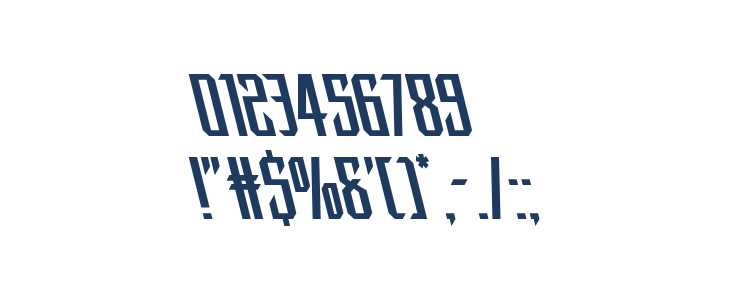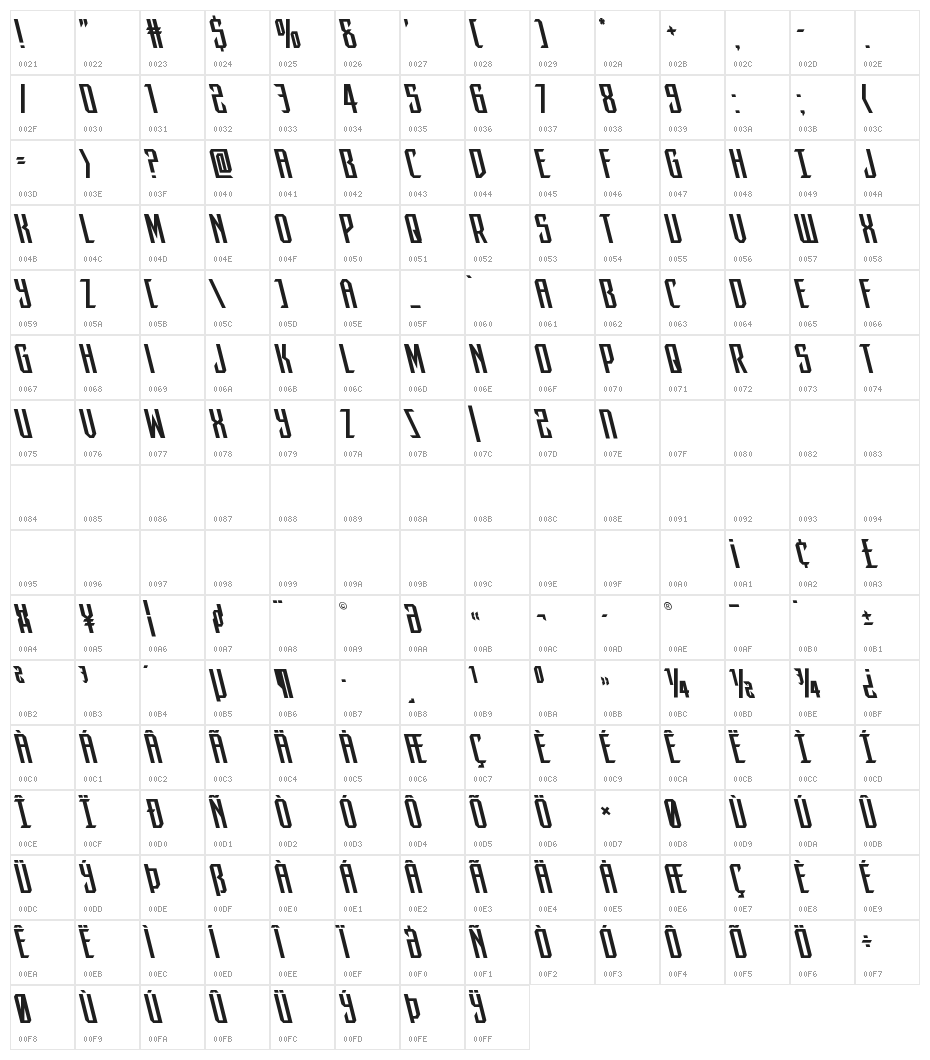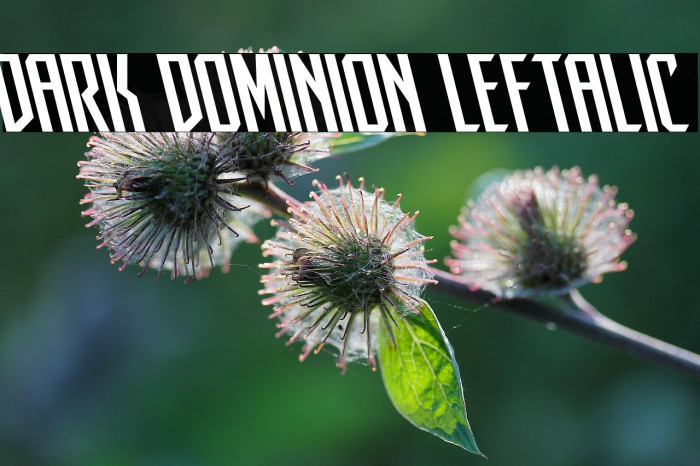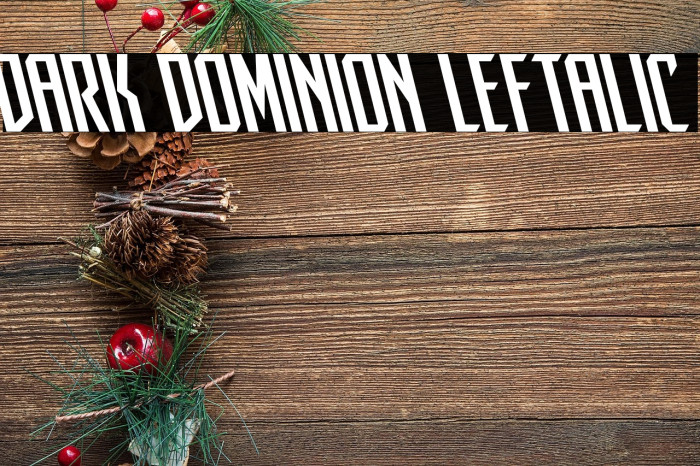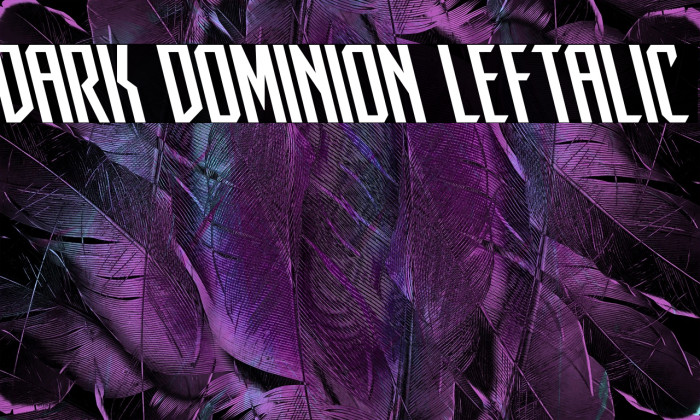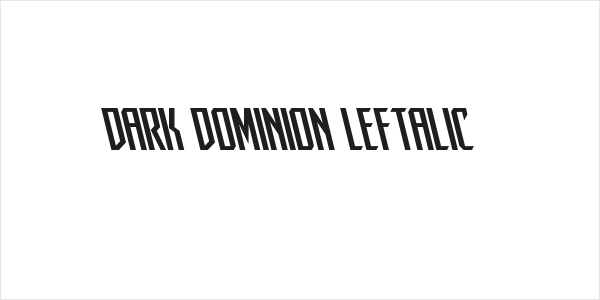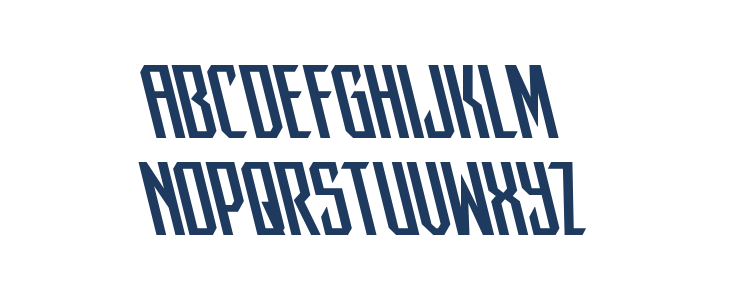
Dark Dominion Leftalic Font
Dark Dominion Leftalic Description
This font features a bold and angular design with a distinct leftward slant, giving it a dynamic and edgy appearance. The characters are tightly spaced, creating a compact and cohesive look. The uppercase letters are tall and narrow, while the lowercase letters maintain a similar style, ensuring consistency throughout. The numbers and special characters follow the same angular and slanted design, making them easily recognizable and visually appealing. The high contrast in stroke thickness adds to the boldness of the font, making it stand out in any design.